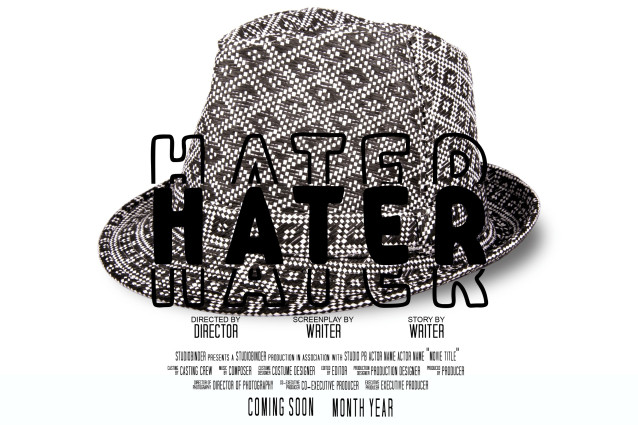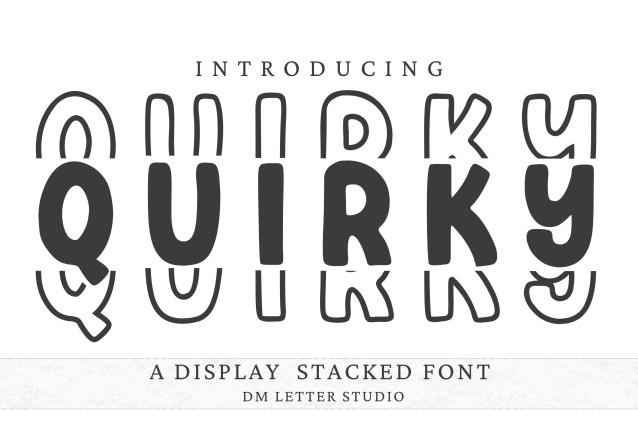
Quirky Stacked Font
Quirky Stacked Font is a fun and bold display font with stacked letterforms that bring a lively and modern twist to your typography. With its cheerful curves and layered alignment, this typeface is perfect for posters, kids’ crafts, branding, product packaging, and playful quotes. It adds a vibrant personality to every design.